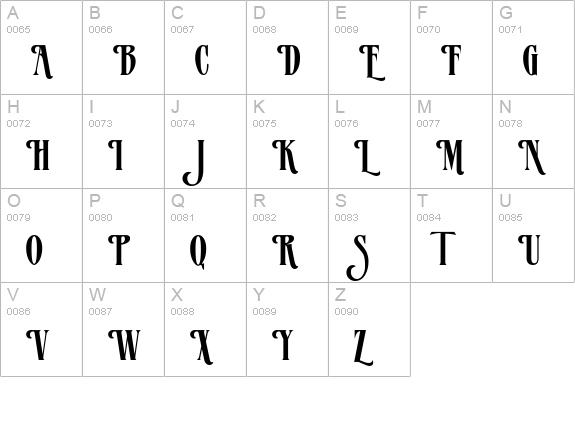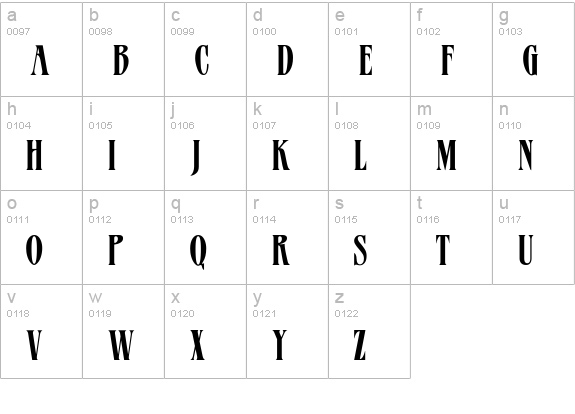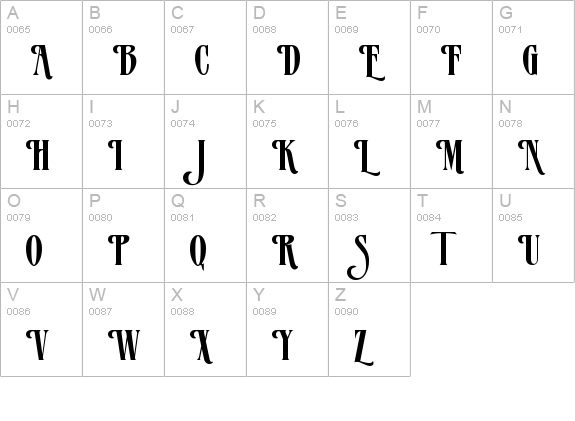
VerveAlternate Font Details
VerveAlternate font is a modern and stylish typeface that exudes creativity and sophistication. Its unique alternate characters add a touch of elegance to any design project. With a sleek and contemporary look, VerveAlternate font is perfect for branding, advertising, and editorial design. Best of all, VerveAlternate font is available for free download at FontsMarket.com. This means that you can easily access this stunning font and use it in your projects without any cost. Whether you're designing a website, creating a logo, or working on a print publication, VerveAlternate font will elevate your work and make it stand out from the crowd. Don't miss out on the opportunity to enhance your designs with the beauty and versatility of VerveAlternate font. Download it for free today and unleash your creativity!